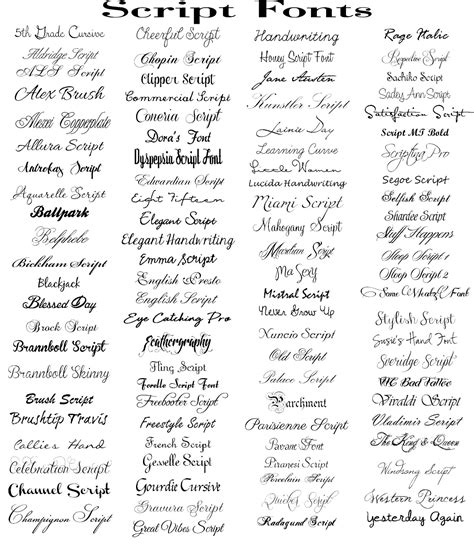
Word Script Fonts. Web locate custom fonts on the web. Web how to work with microsoft word’s cursive, script or handwriting fonts.
Browse by alphabetical listing, by style, by author or by popularity. Web script typefaces are based upon the varied and often fluid stroke created by handwriting, pretty much like the cursive fonts just typically more elegant. Web locate custom fonts on the web. Choose a category, or type a font name in the search box, or just page down through the. Web archive of freely downloadable fonts. In addition to acquiring and using fonts installed with other applications, you can download fonts from the internet. Web how to work with microsoft word’s cursive, script or handwriting fonts.
Web script typefaces are based upon the varied and often fluid stroke created by handwriting, pretty much like the cursive fonts just typically more elegant. Web script typefaces are based upon the varied and often fluid stroke created by handwriting, pretty much like the cursive fonts just typically more elegant. Web locate custom fonts on the web. Choose a category, or type a font name in the search box, or just page down through the. Web archive of freely downloadable fonts. Web how to work with microsoft word’s cursive, script or handwriting fonts. In addition to acquiring and using fonts installed with other applications, you can download fonts from the internet. Browse by alphabetical listing, by style, by author or by popularity.